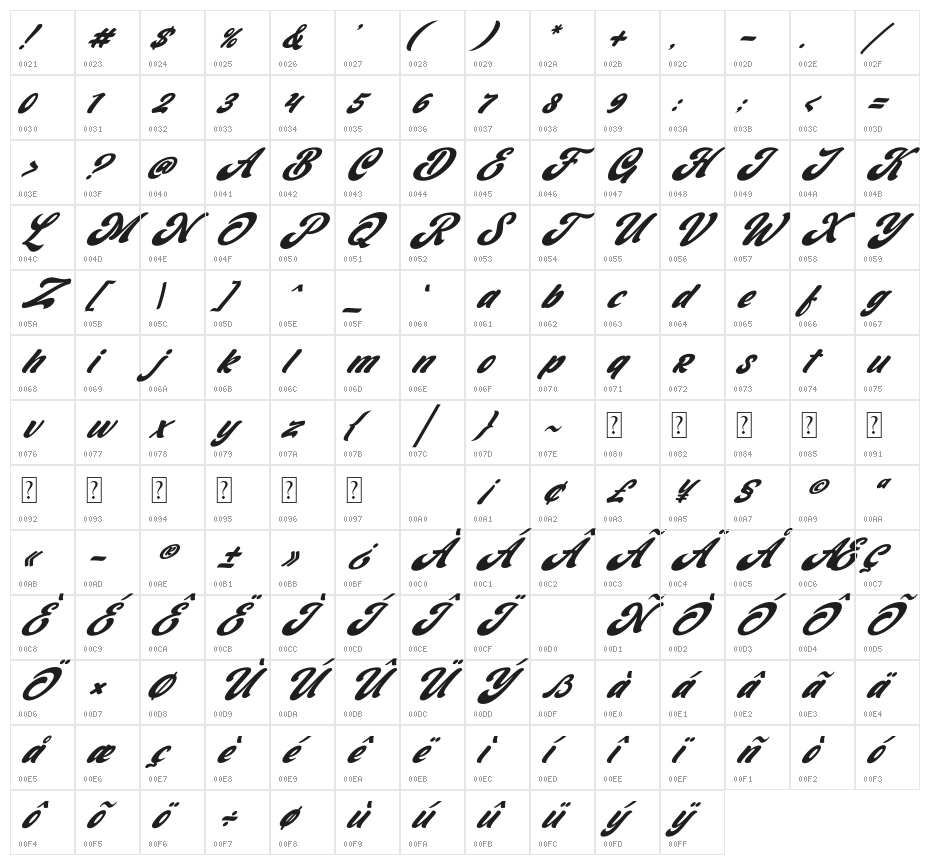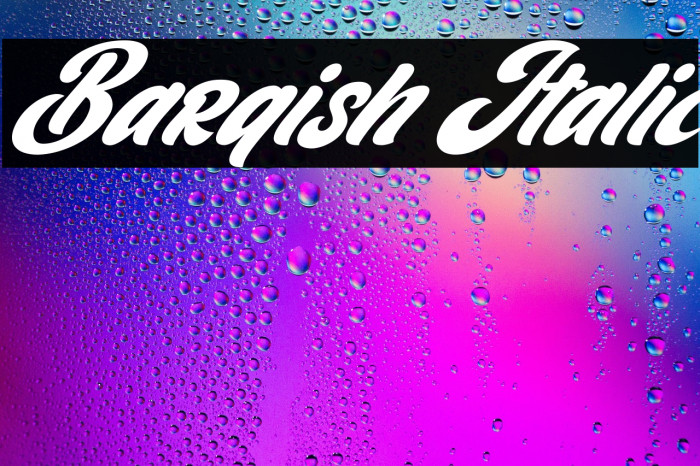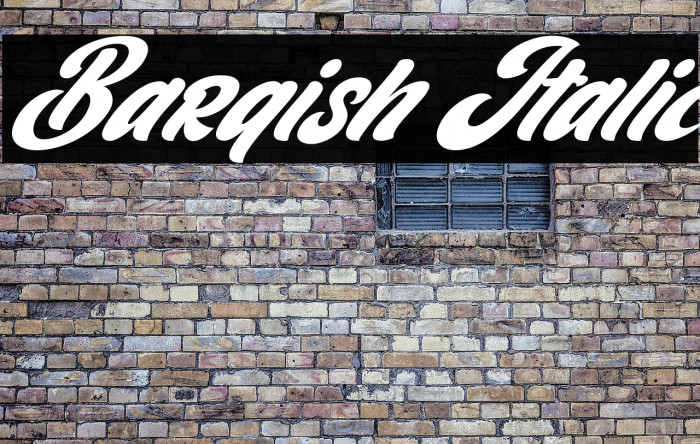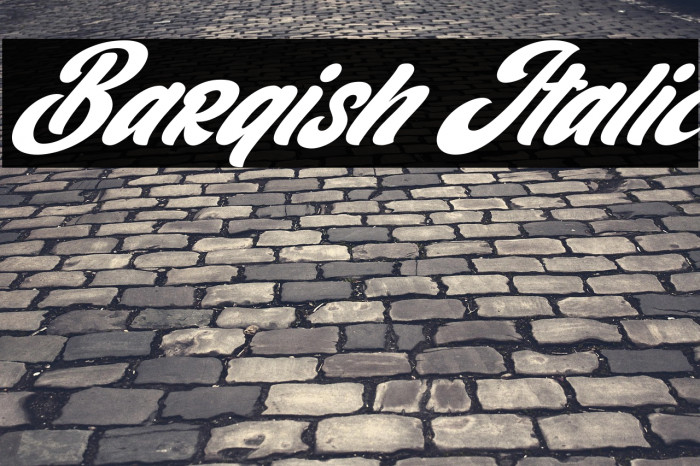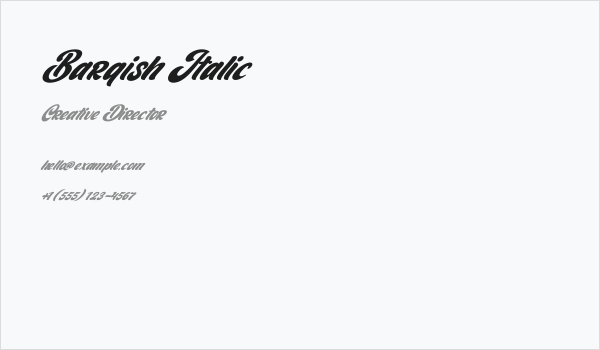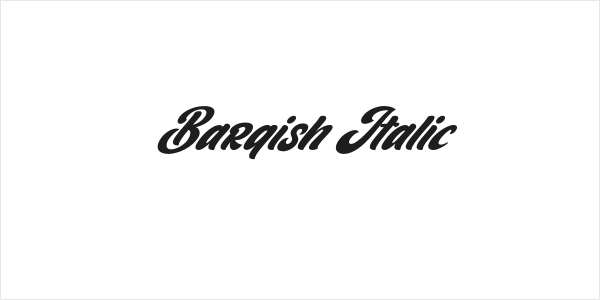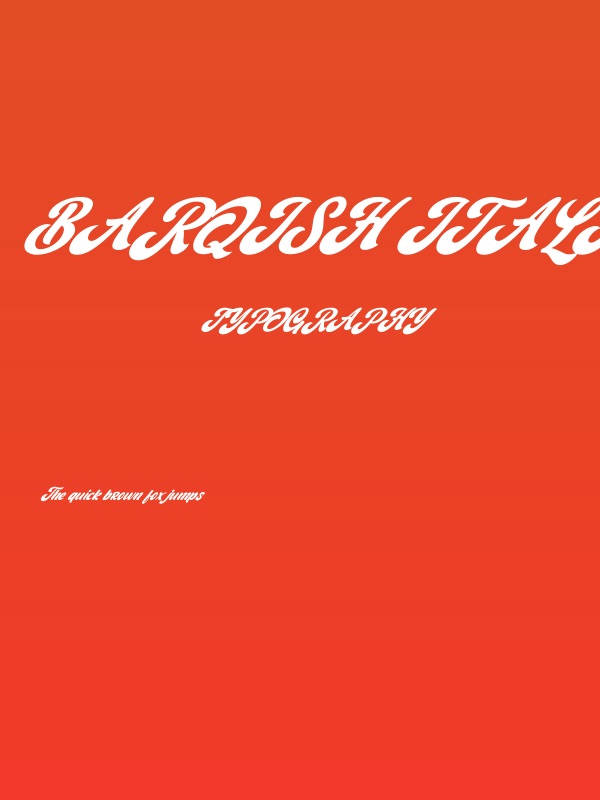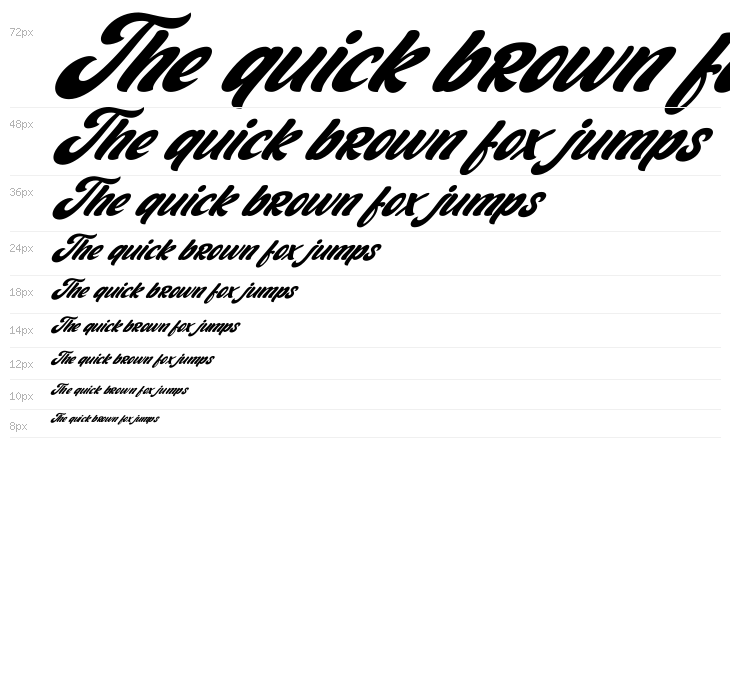
Barqish Italic Font
Barqish Italic Description
This font features a bold and flowing script style, characterized by its elegant and dynamic curves. The letters are connected in a cursive manner, giving it a handwritten appearance. The uppercase letters are ornate and slightly larger, while the lowercase letters maintain a consistent flow. The numbers and special characters are designed to match the overall aesthetic, with smooth transitions and rounded edges. This font exudes a sense of sophistication and creativity, making it suitable for projects that require a personal touch.
Use CaseLogos, Headlines, Invitations
Proposed ProjectsIdeal for wedding invitations, branding, greeting cards, and elegant signage.